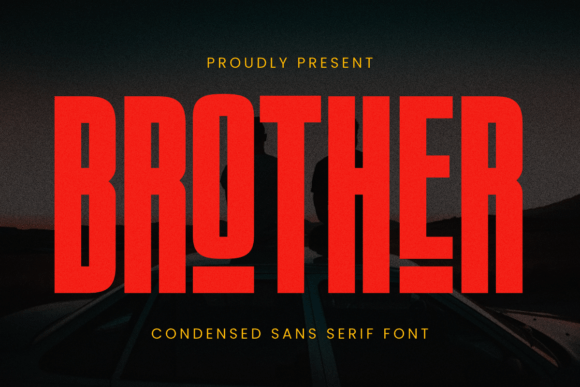
The Power of Brother Font: Unleashing Bold and Modern Style
I’ll never forget the design project that led me to discover the Brother font. I was working on a branding campaign for a streetwear label, and my client specifically asked for a font that exuded confidence, energy, and a touch of edginess. As I scrolled through my font library, nothing seemed quite right – until I stumbled upon Brother. Its bold, condensed sans serif style immediately caught my attention, and I knew I had found the perfect fit.
So, what makes Brother font so special? Here are a few things I love:
• ✨ Powerful energy: Brother’s strong vertical strokes and sharp geometric edges make it a showstopper.
• ✅ Modern style: This font is perfect for designers seeking a clean yet aggressive display font.
• 💯 Versatility: Brother is ideal for a wide range of projects, from urban apparel designs to music branding, esports logos, and gritty posters.
Of course, no font is perfect. Here are a few quirks to keep in mind:
• 🤔 Limited legibility at small sizes: Brother is designed for display use, so it may not be the best choice for body text or small captions.
• ⚠️ Glyph limitations: While Brother has a range of OpenType features, it’s not as extensive as some other fonts on the market.
The Story Behind Brother Font
Brother font was designed with the urban creative in mind. Its bold, condensed style is inspired by the streets – think graffiti, streetwear, and edgy graphics. The designer behind Brother wanted to create a font that would make a statement, one that would grab attention and convey confidence. And with its strong vertical strokes and sharp geometric edges, Brother font delivers.
Q: What type of projects is Brother font best suited for?
A: Brother font is ideal for urban apparel designs, music branding, esports logos, gritty posters, and other projects that require a bold, modern style.
Q: Can I use Brother font for body text?
A: While Brother font can be used for body text, it’s primarily designed for display use. For smaller text sizes, you may want to consider a font with better legibility.
Q: Does Brother font have OpenType features?
A: Yes, Brother font has a range of OpenType features, including stylistic alternates, glyphs, and stylistic sets.
Q: Is Brother font suitable for merchandise and packaging design?
A: Absolutely! Brother font’s bold, modern style makes it perfect for merchandise and packaging design, especially for brands that want to make a statement.